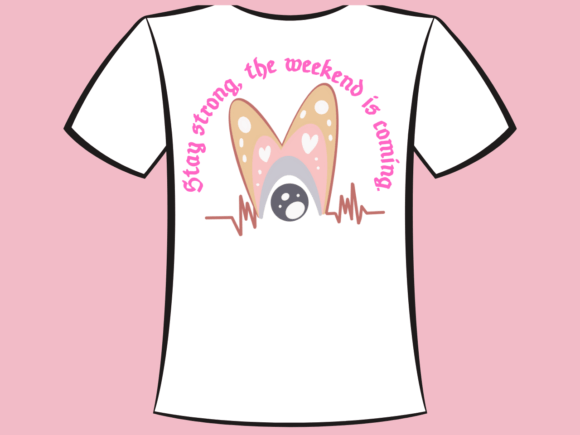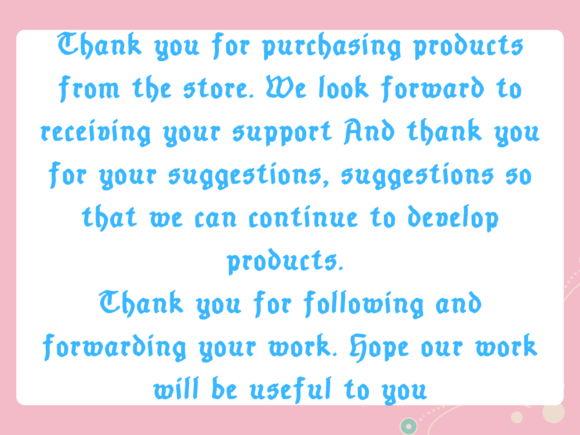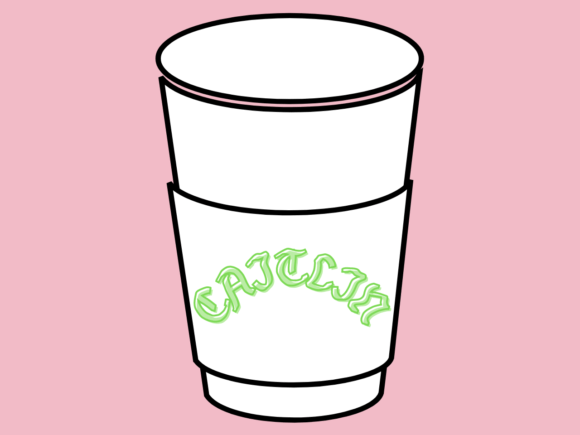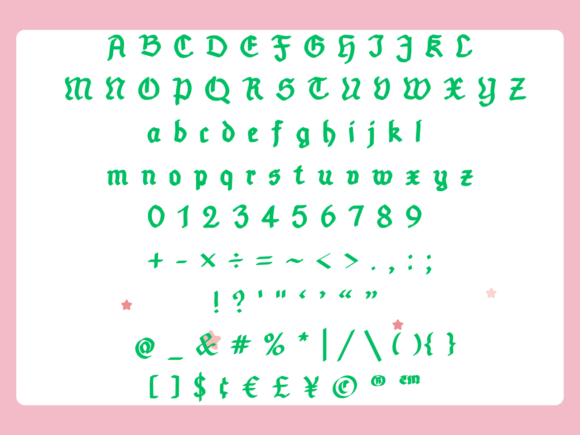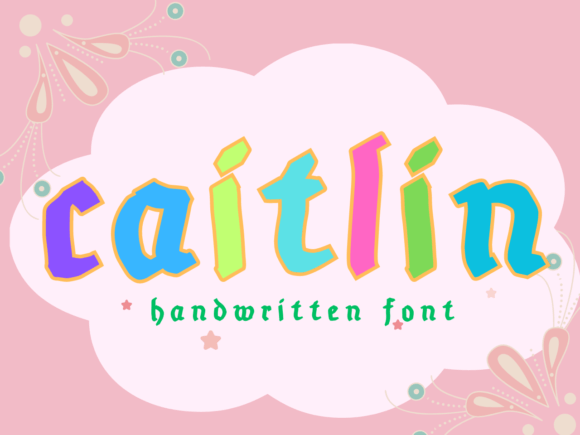
Caitlin Font: Elevate Your Designs with Unique and Artistic Characters
Are you tired of using the same old fonts for your designs? Do you want to add a touch of creativity and uniqueness to your work? Look no further than the Caitlin Font. This font design is unlike any other, featuring strange and artistic characters that are sure to make your work stand out. In this article, we’ll explore the features and benefits of the Caitlin Font, and how it can be used to add prominence to your designs.
What is Caitlin Font?
The Caitlin Font is a unique and creative font design that is perfect for designers, crafters, and anyone looking to add a personal touch to their work. This font features a distinctive and artistic style, with characters that are sure to grab attention. Whether you’re designing greeting cards, wedding cards, or simply want to add some personality to your lettering, the Caitlin Font is the perfect choice.
Key Features of Caitlin Font
- Unique and Artistic Characters: The Caitlin Font features strange and artistic characters that are sure to make your work look more creative.
- Distinctive Look: With this font, your letters will have a distinct look that stands out from the crowd.
- Versatile: The Caitlin Font can be used for a variety of design projects, including lettering, greeting cards, wedding cards, and more.
Benefits of Using Caitlin Font
So why choose the Caitlin Font for your designs? Here are just a few benefits of using this unique font:
- Adds Creativity: The Caitlin Font adds a touch of creativity and uniqueness to your designs, setting them apart from the rest.
- Increases Visibility: With its distinctive look, the Caitlin Font is sure to grab attention and increase visibility for your work.
- Perfect for Branding: This font is perfect for designers looking to create a unique brand identity for their clients or business.
- Great for Crafters: The Caitlin Font is also great for crafters who want to add a personal touch to their handmade cards, gift tags, and other projects.
- Experiment with Different Sizes: Try out different font sizes to see how the Caitlin Font looks in different contexts.
- Pair with Other Fonts: Experiment with pairing the Caitlin Font with other fonts to create a unique and interesting look.
- Use for Headlines: The Caitlin Font is perfect for headlines and titles, where its distinctive look can really make an impact.
In conclusion, the Caitlin Font is a unique and creative font design that is perfect for designers, crafters, and anyone looking to add a personal touch to their work. With its strange and artistic characters, this font is sure to make your work stand out and add a touch of creativity to your designs. Whether you’re designing greeting cards, wedding cards, or simply want to add some personality to your lettering, the Caitlin Font is the perfect choice.